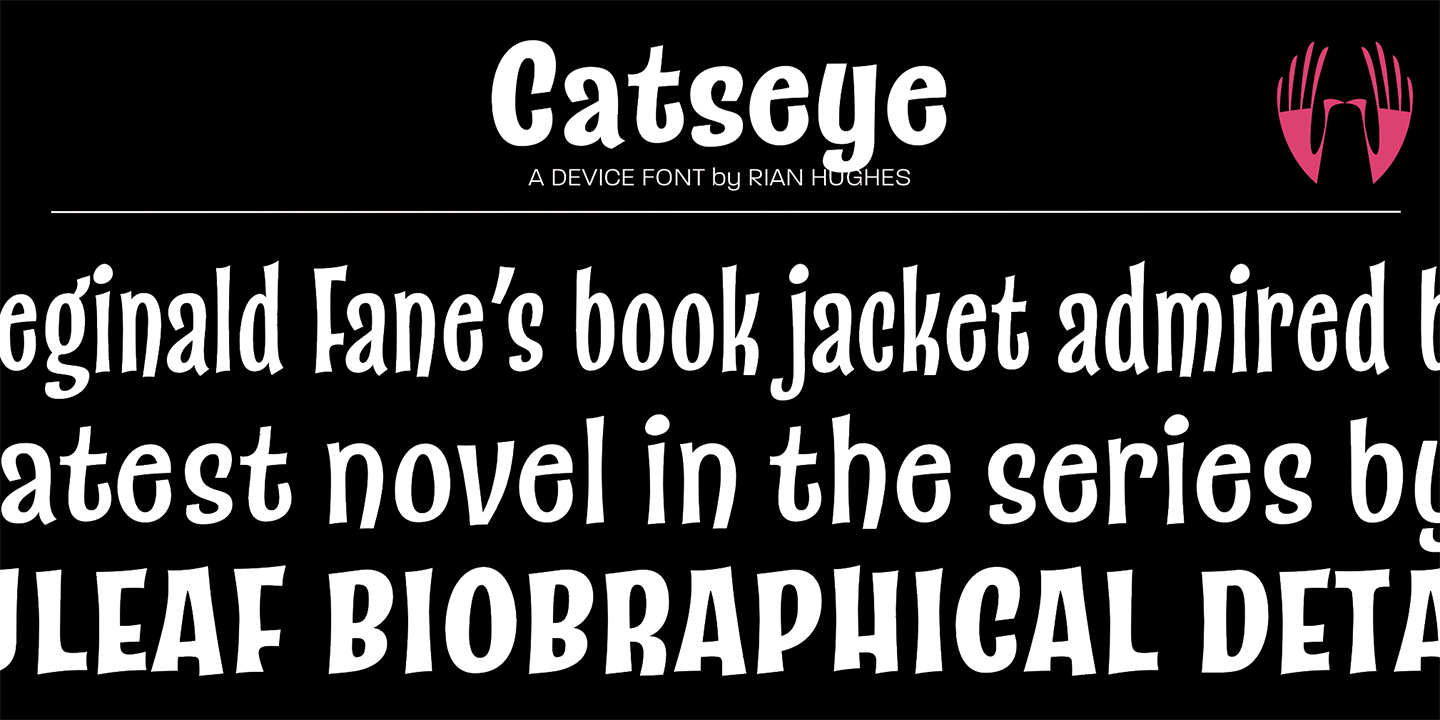
If you're looking for a bold, unique, and artistic typeface with a fun, quirky flair, Catseye Font Free Download is the perfect choice for your creative projects. This font features playful, slightly irregular letterforms with distinct curves, making it ideal for creative branding, posters, logos, t-shirt designs, social media graphics, and anything that needs a touch of personality and fun.
Catseye Font offers excellent readability while maintaining its artistic, whimsical character. It includes multilingual support and a variety of glyphs, providing flexibility to create standout typography with style. Whether you're designing for a playful brand, crafting eye-catching promotional materials, or working on a whimsical design, this font adds a bold and energetic vibe.